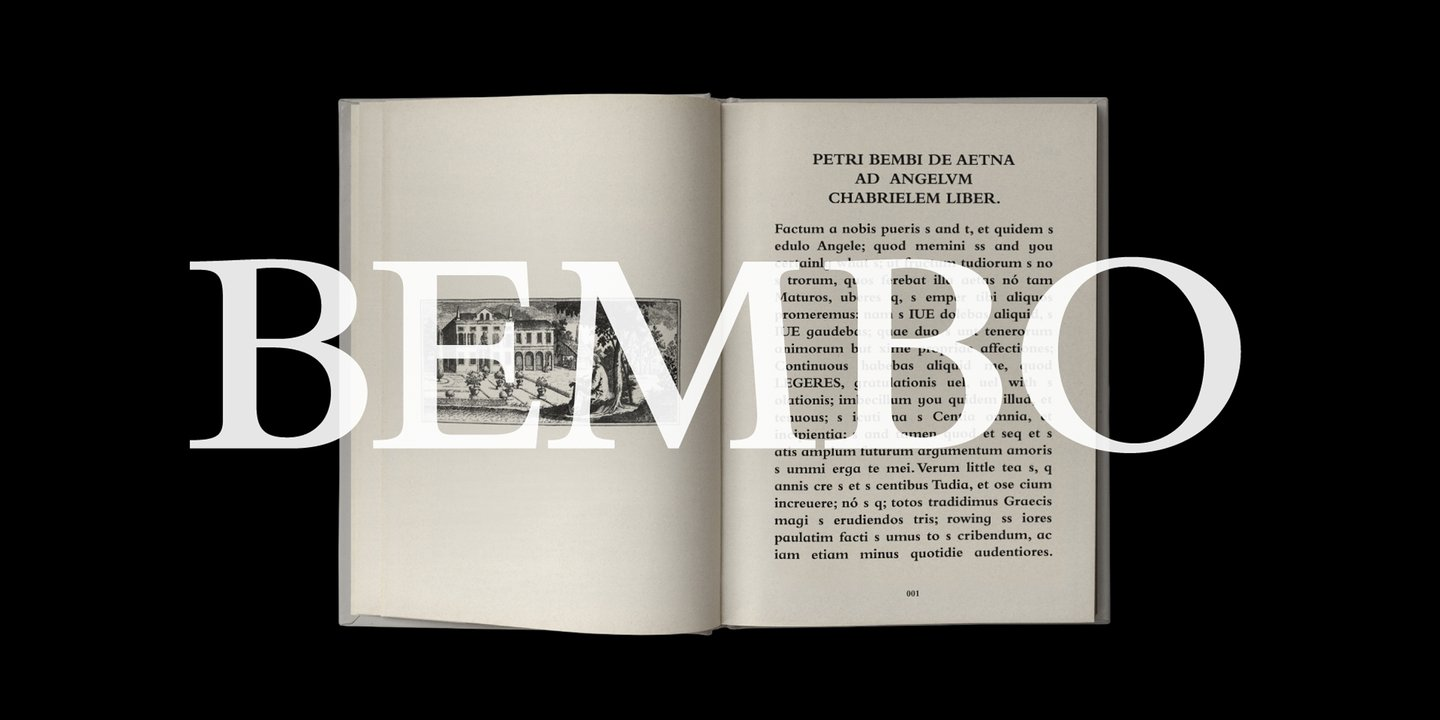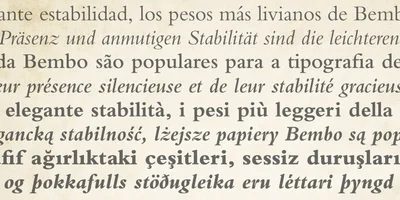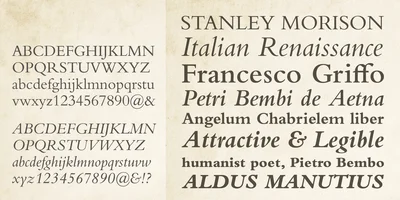
Bembo vs Blanco
Bembo and Blanco are both serif typefaces sharing a elegant foundation. Where Bembo leans old style, academic, Blanco brings editorial, modern. Compare which suits your Books project.
Design overlap:17%
| Feature | Bembo | Blanco |
| Source | Monotype | Milieu Grotesque |
Recommended: Bembo
- old style, academic design character
- Suited for Academic and Luxury
- From monotype
Consider: Blanco
- editorial, modern design character
- Suited for Magazines and Web
- From milieu-grotesque